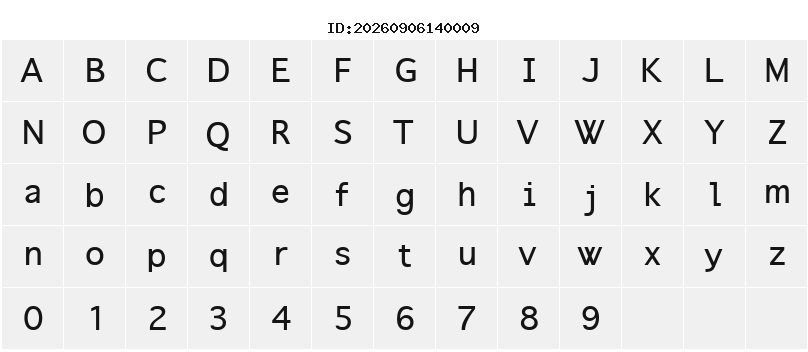
Talos Preview
• Font Name: Talos
• Full Font Name: Talos
About Talos.ttf
Talos.ttf is a modern, elegant sans-serif font designed for ultimate readability and visual harmony. Perfect for branding, headlines, web design, and print materials.